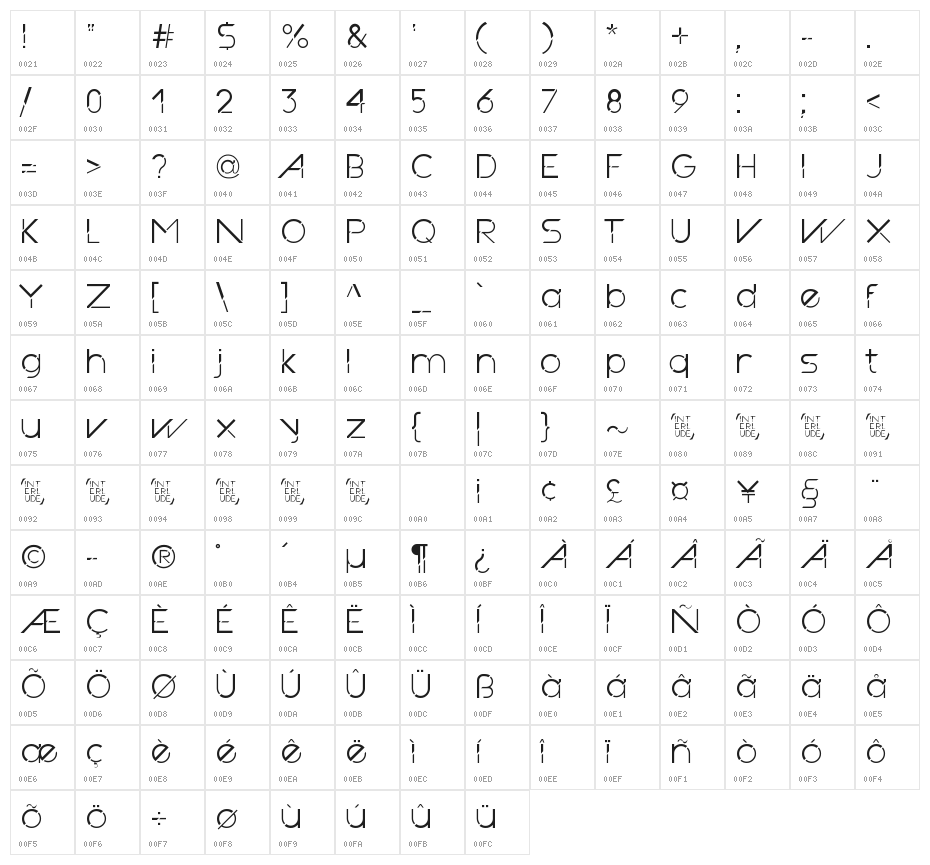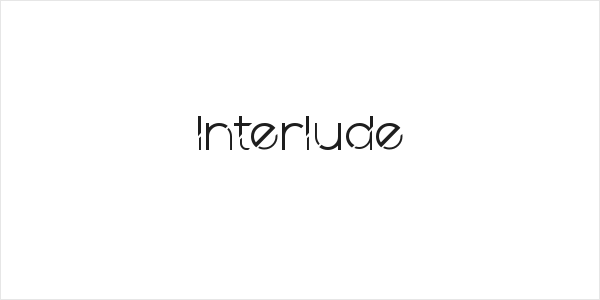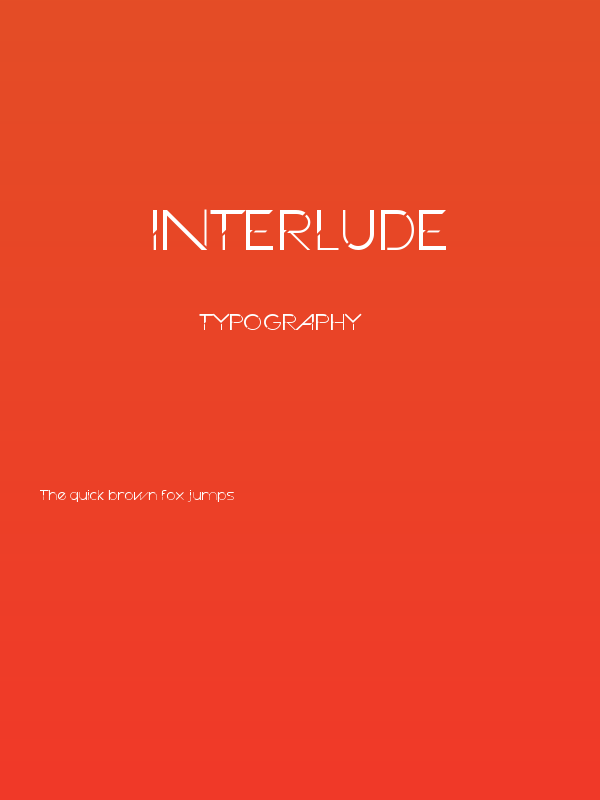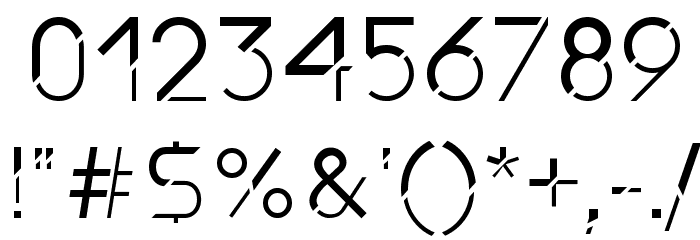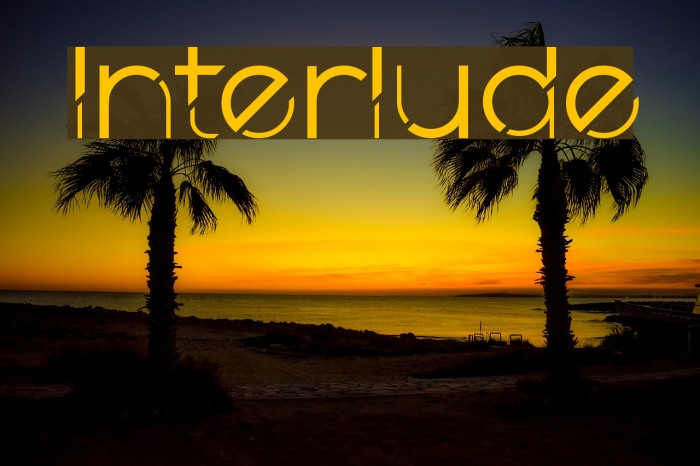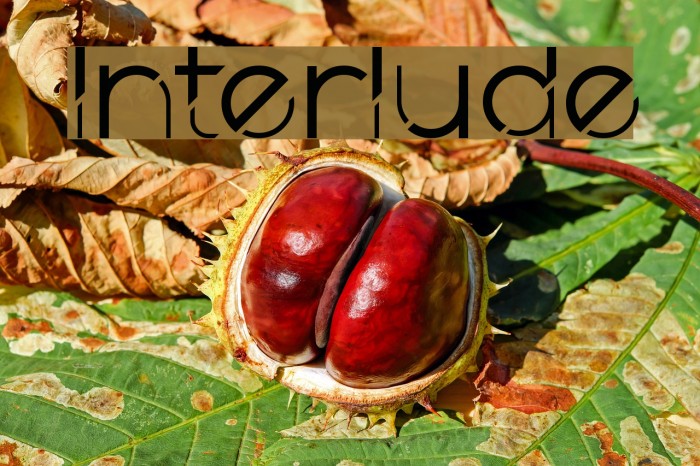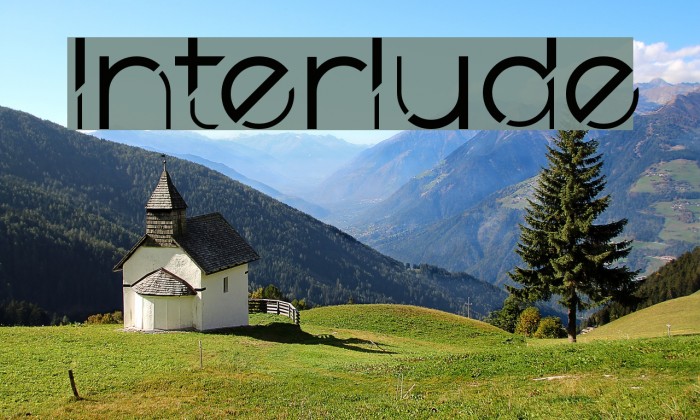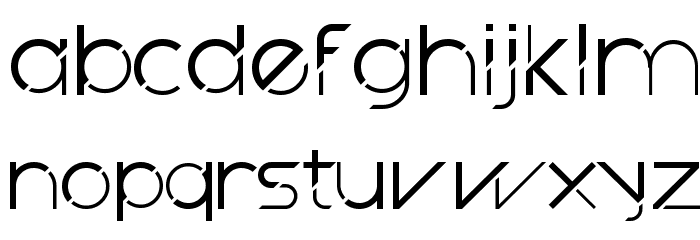
Interlude Font
Interlude Description
This font features a modern and sleek design with a unique geometric style. The characters are constructed with clean lines and sharp angles, giving it a futuristic and contemporary feel. The uppercase letters maintain a consistent height, while the lowercase letters have a slightly more playful and rounded appearance. The numbers and special characters follow the same design principles, ensuring a cohesive look across all elements. The font's distinct cut-out sections within the characters add an intriguing visual element, making it stand out in any design project.